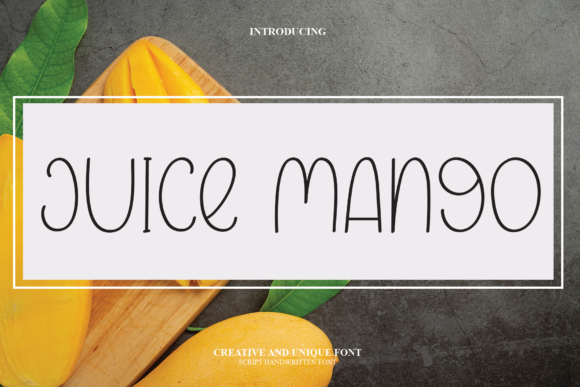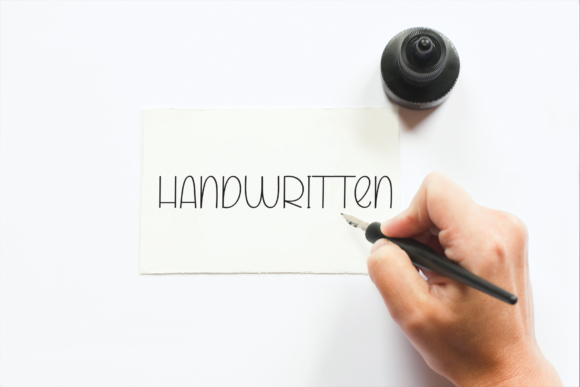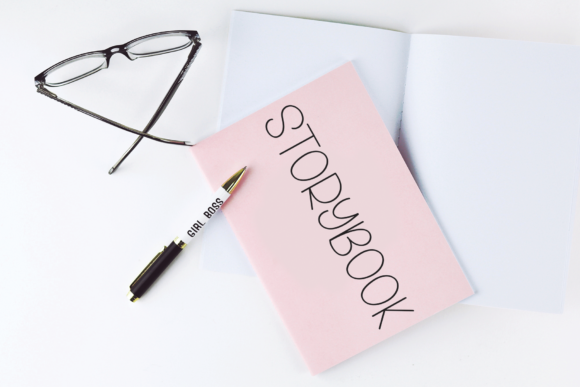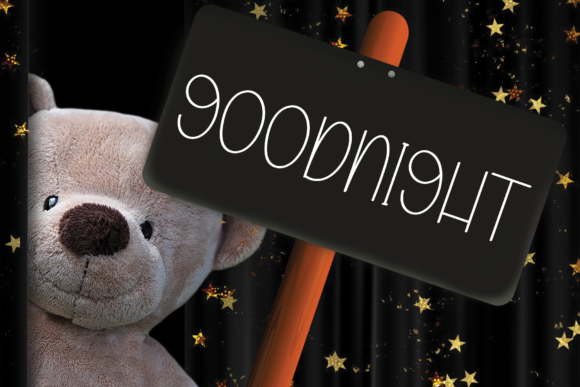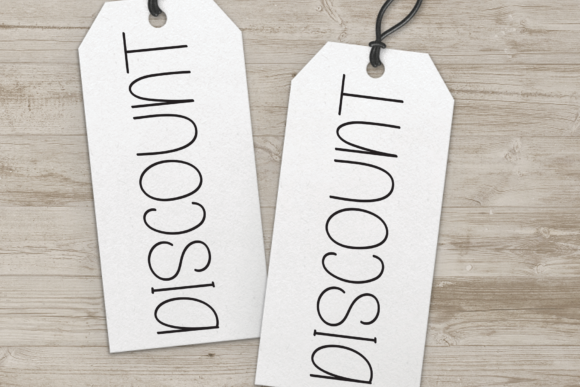
About Juice Mango Font
“Introducing a delightfully sweet, handwritten font, meticulously crafted with the utmost attention to detail. This unique font has been designed with a singular purpose – to deliver the results you envision. The versatility of this font allows it to be used across a wide array of products, catering to diverse needs and requirements.
This font is not just a set of characters; it’s a tool that brings your ideas to life. It’s a blend of art and functionality, designed to communicate your message effectively. The handwritten style adds a personal touch, making your content more engaging and relatable.
The beauty of this font lies in its flexibility. Whether you’re creating a logo for your brand, designing an invitation for a special event, or writing a heartfelt message, this font is up to the task. It’s perfect for any project where you want to add a touch of elegance and personalization.
In conclusion, this sweet handwritten font is more than just a pretty face. It’s a powerful tool that can help you create stunning, SEO-friendly content. It’s a font that was crafted with care, designed to deliver the results you want. So why wait? Start creating with this font today, and see the difference it can make in your work.”